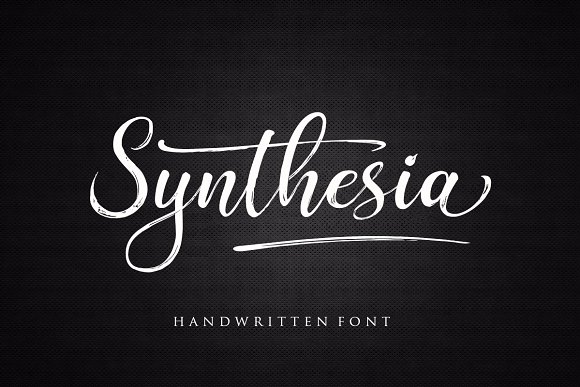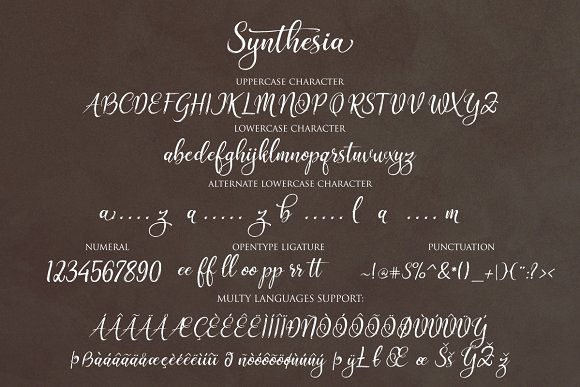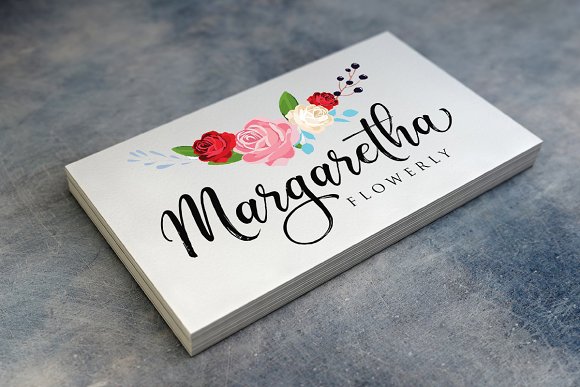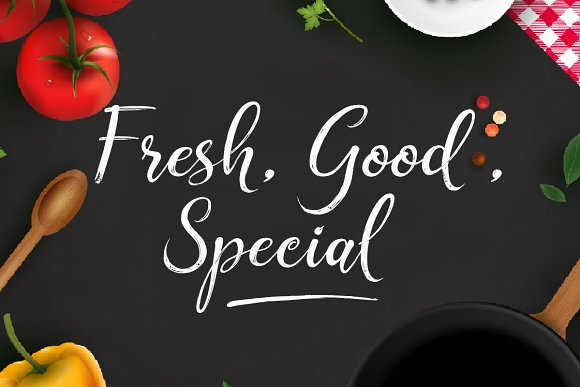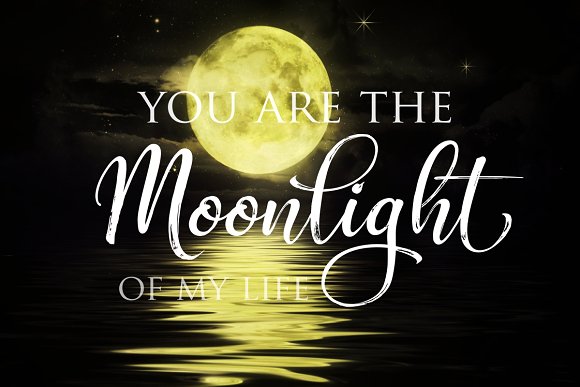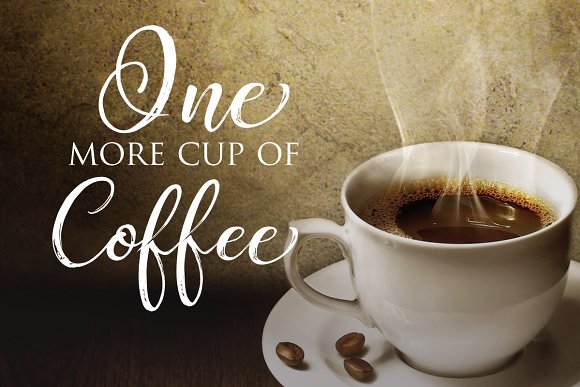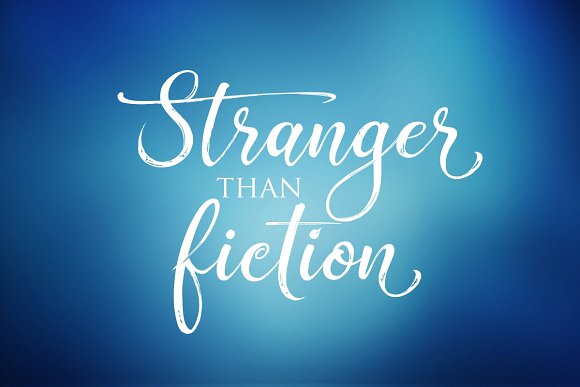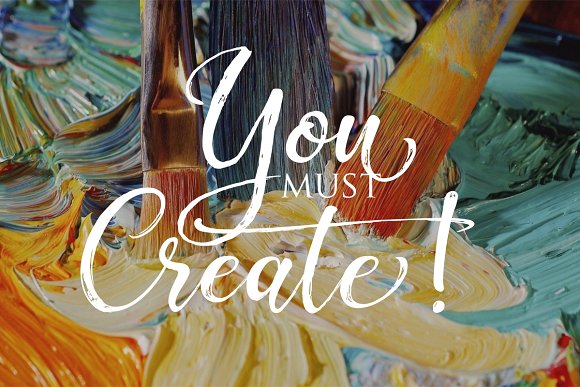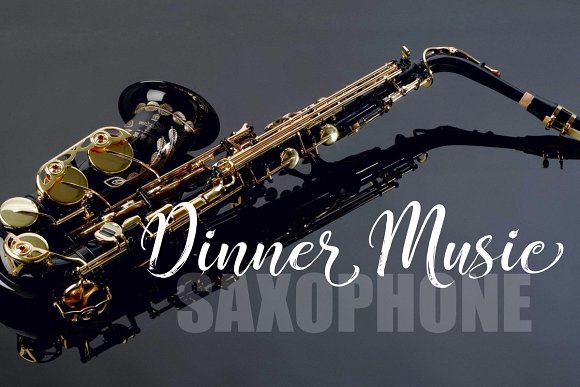
HomeScript FontsSynthesia Font Script Fonts Synthesia Font FacebookXPinterestWhatsApp Synthesia Font Poster 2 Synthesia Font Poster 3 Synthesia Font Poster 4 Synthesia Font Poster 5 Synthesia Font Poster 6 Synthesia Font Poster 7 Synthesia Font Poster 8 Synthesia Font Poster 9 About Synthesia Font Synthesia is a beautiful handwritten font that comes packed with swashes and swooshes. DOWNLOAD NOW People also explored Salbatora Font Grand Quentin Duo Font Thinki Lathing Font Simple Kitchen Font Kosakatta Font Heart of Love Font Brush off Font Aqua Lagoon Font Authumn Sofia Font 294 0 TagsSynthesia Font Previous articleWellthington FontNext articleSpotlight Font LEAVE A REPLY Cancel reply Comment: Please enter your comment! Name:* Please enter your name here Email:* You have entered an incorrect email address! Please enter your email address here Website: Save my name, email, and website in this browser for the next time I comment. Personal Use Free Love Heart Personal Use Free Read more about this font Cataleya Personal Use Free Read more about this font Hunters Personal Use Free Read more about this font Zeshane Personal Use Free Read more about this font BLOG Top 7 Google Fonts Alternatives for Faster and Privacy-Friendly Web Design (2025) Top 7 Google Fonts Alternatives for Faster and Privacy-Friendly Web Design (2025) When it comes to web typography, Google Fonts has long been the go-to... Where to Buy American Fonts Online in 2024 How to Cut Any Font on Cricut: Convert a Font to SVG (Free) Best Fonts for YouTube Videos: Make Your Thumbnails Stand Out